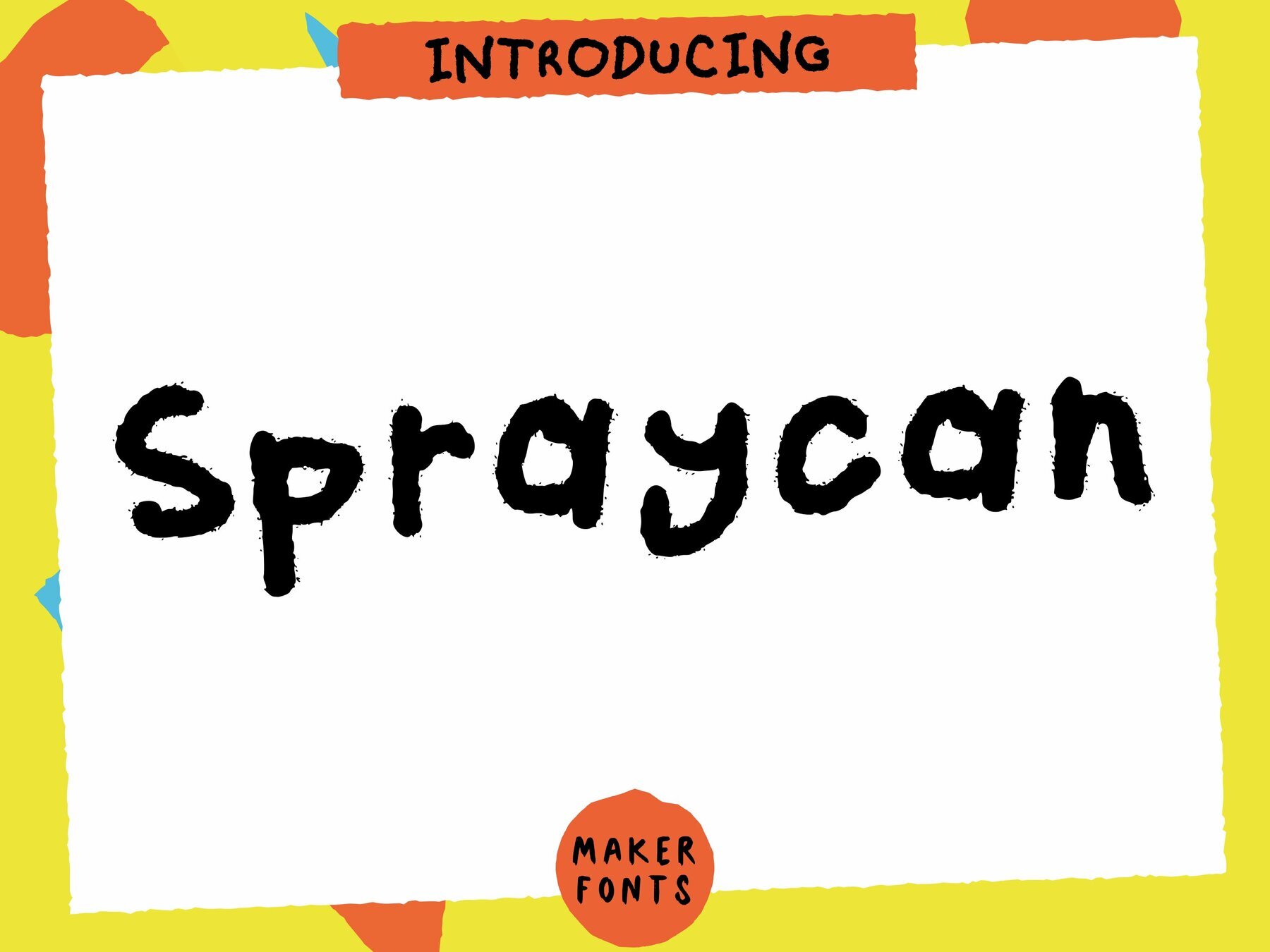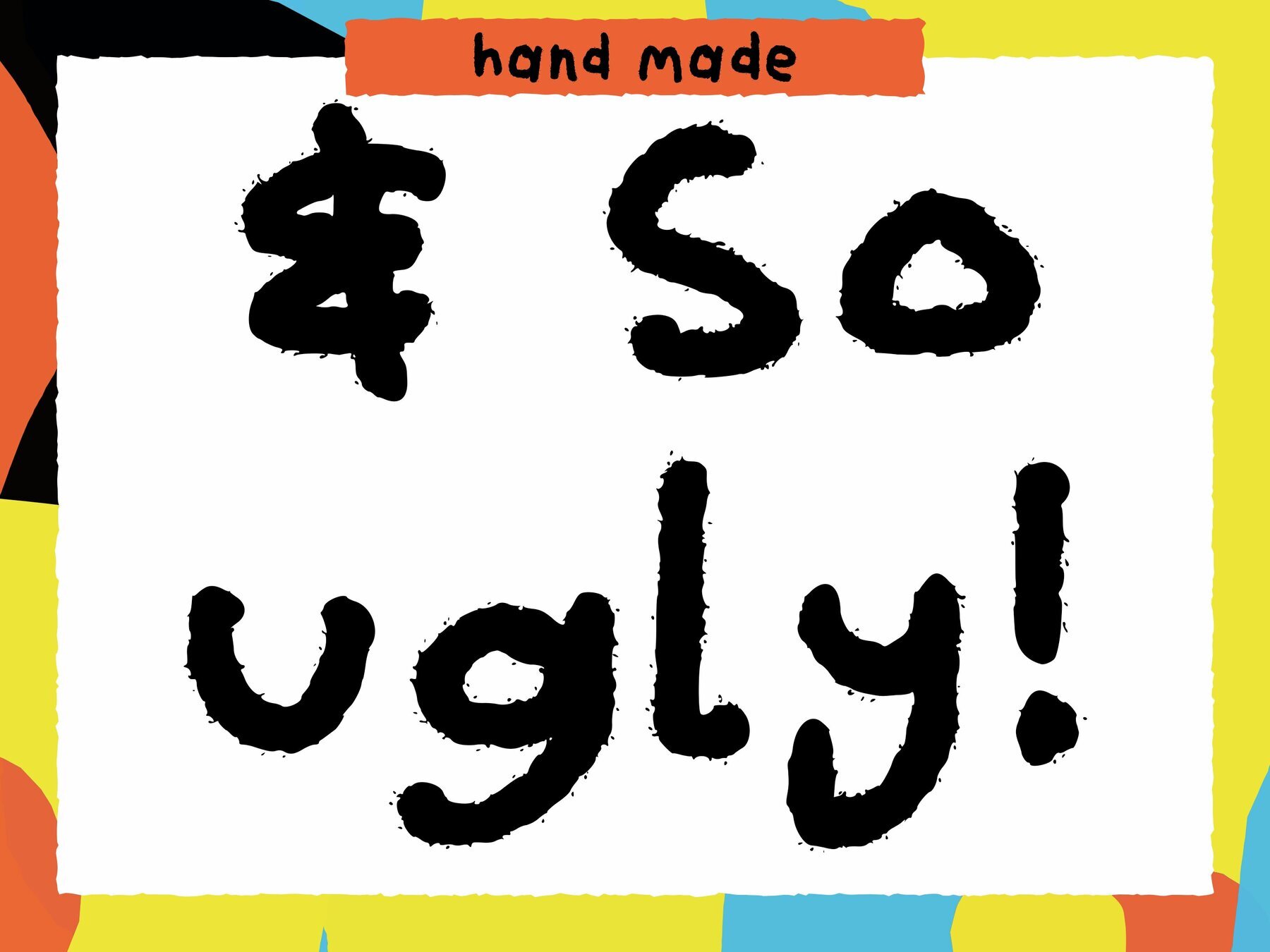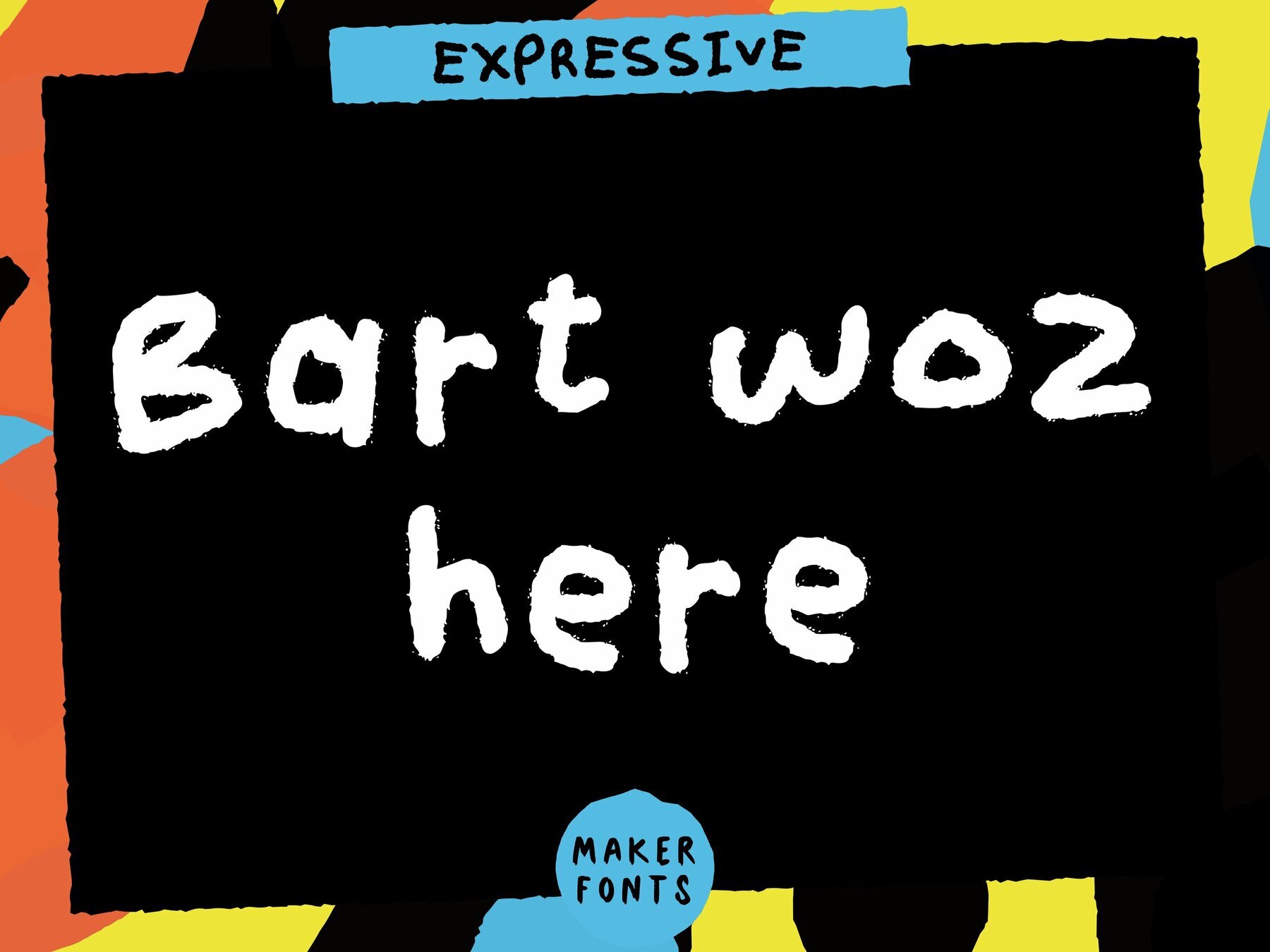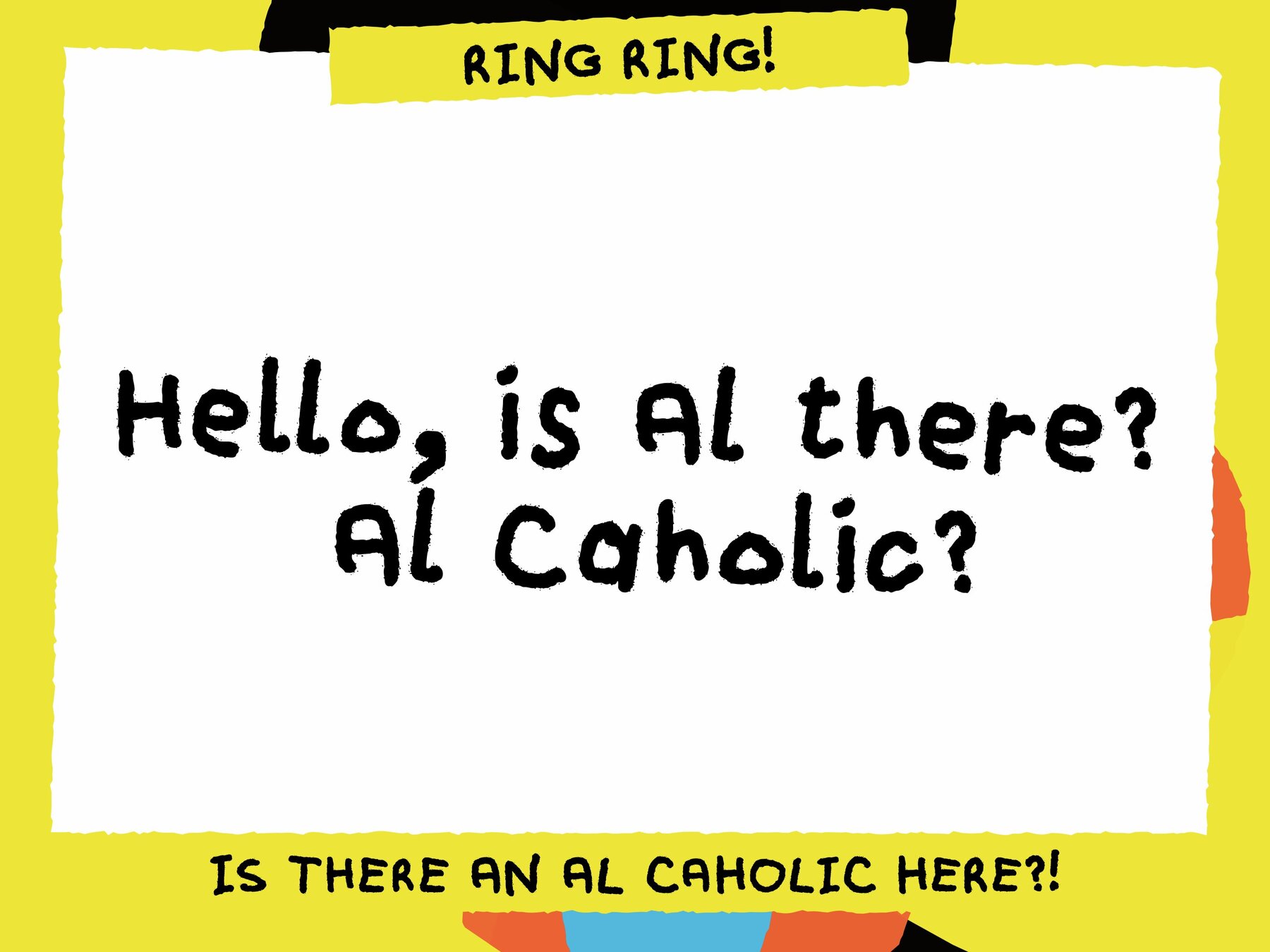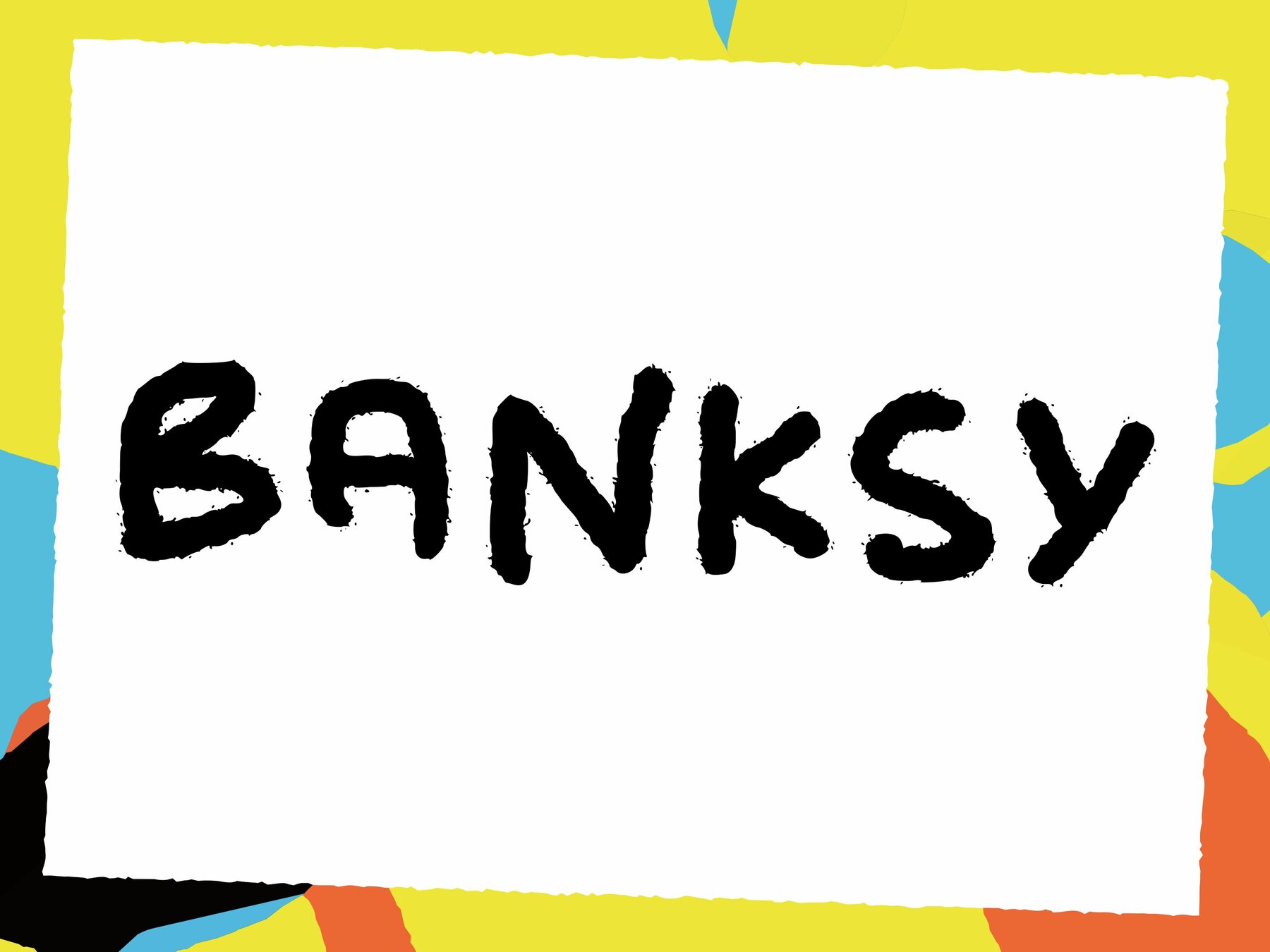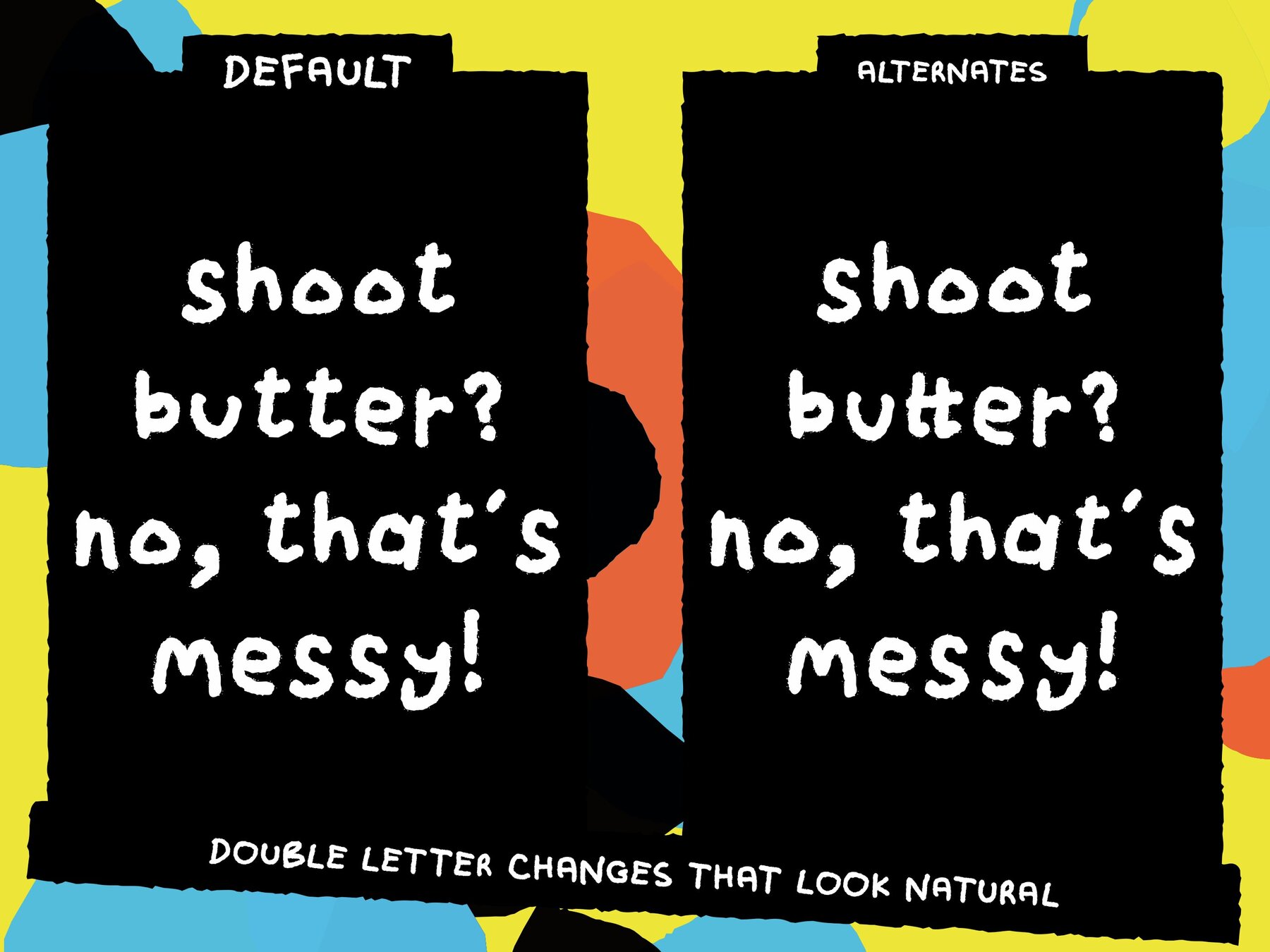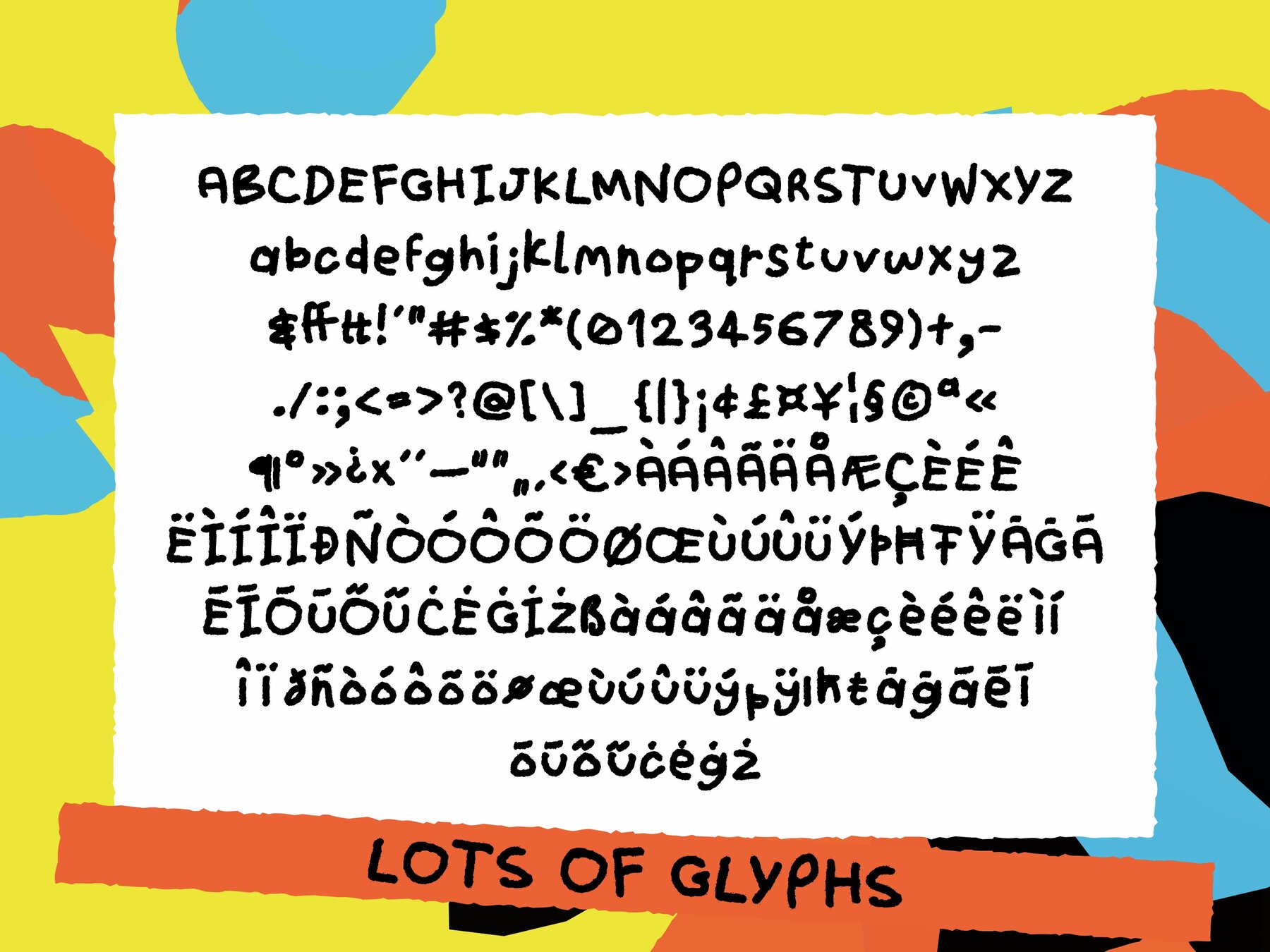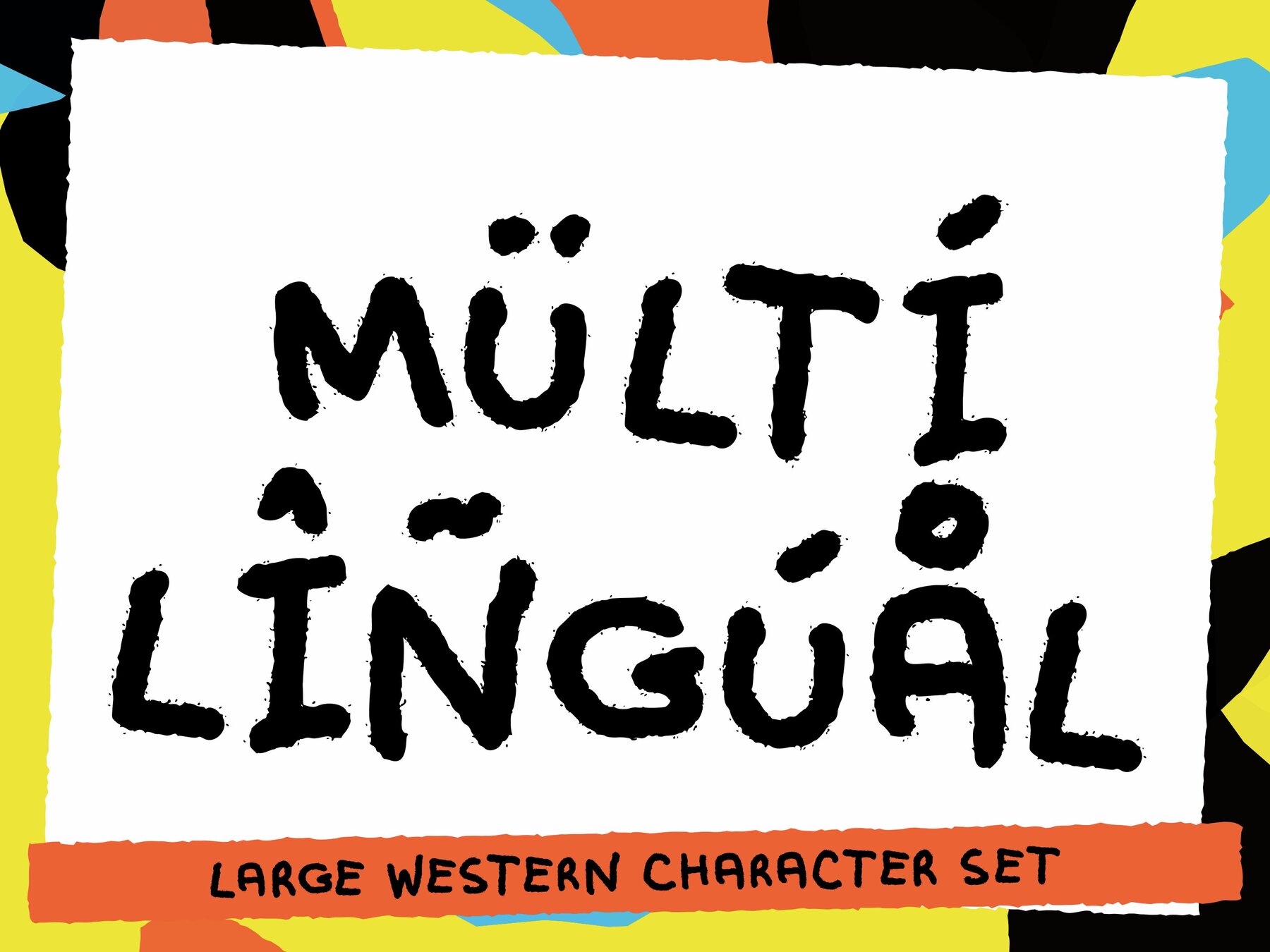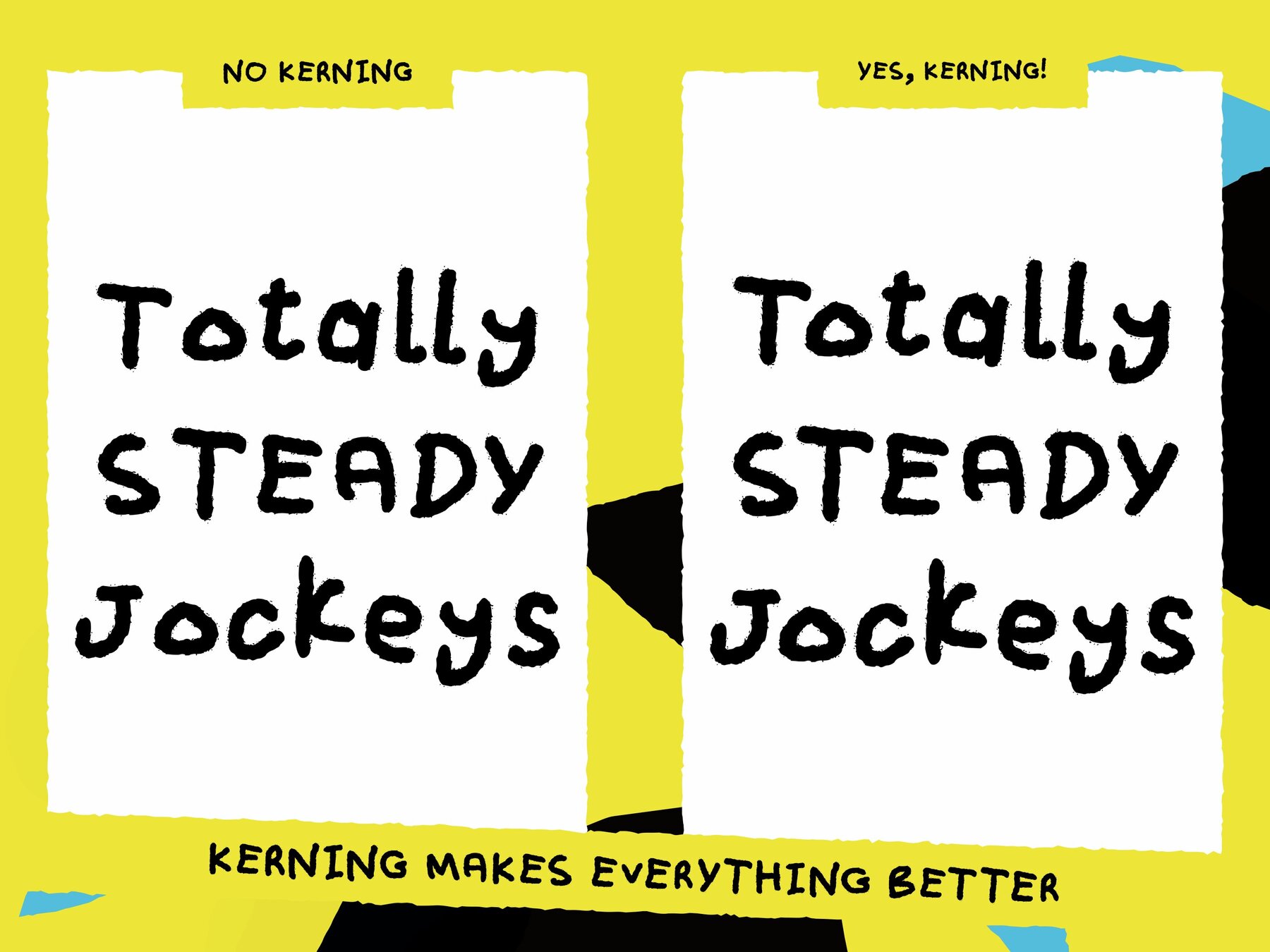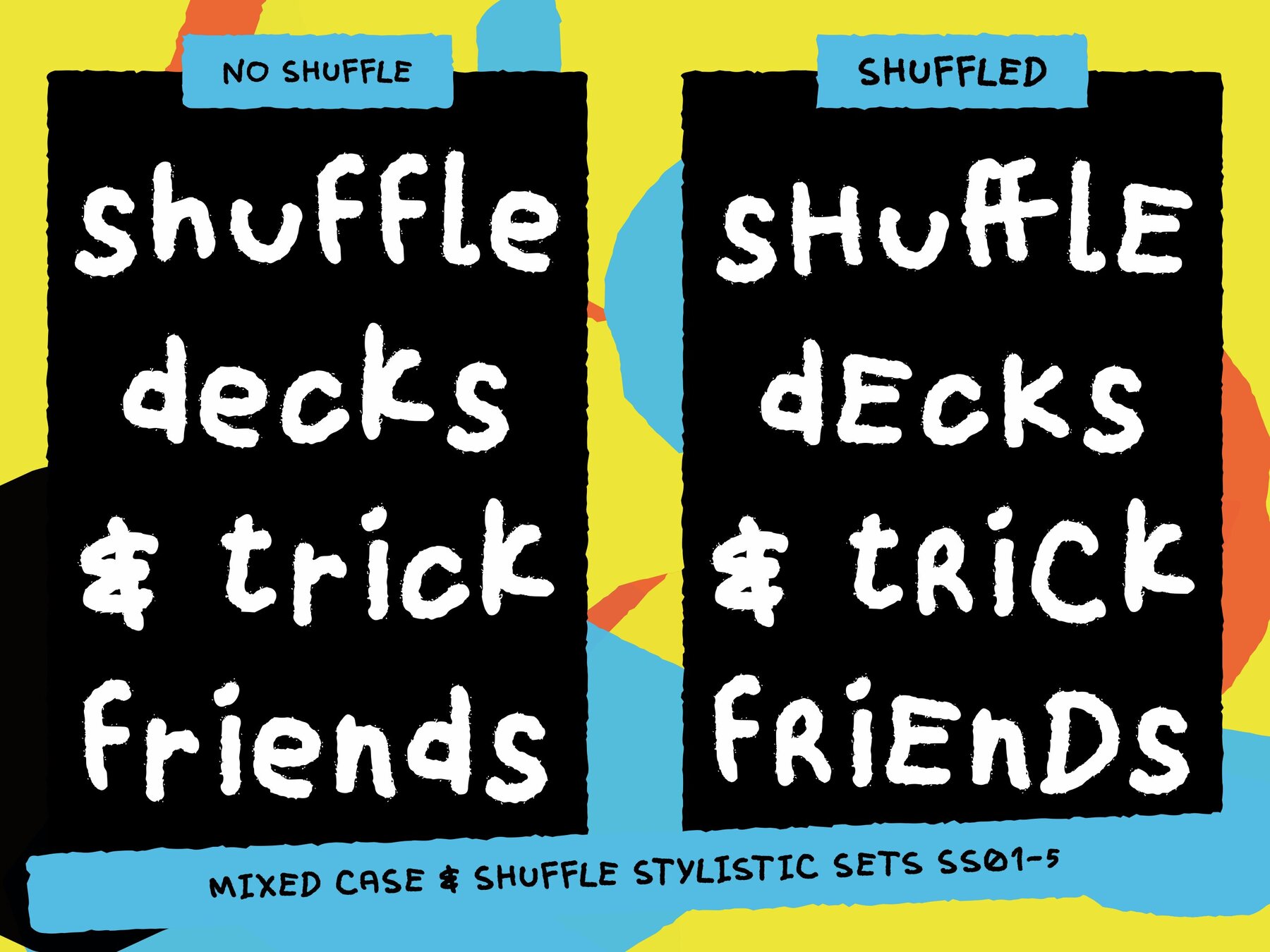
Spraycan Font
MF Spraycan Regular
MF Spraycan is a new disobedient handmade font from Maker Fonts. Perfect for greetings cards, packaging, comics, animation, video and any use where a bold yet personal touch is needed. Let MF Spraycan bring some 90s chaos to your next project! The font comes with a large western character set and lots of glyphs. Opentype features include: Ligatures, Contextual Alternates, and Stylistic Sets (ss01-ss05) that all combine to create a natural handwritten texture.